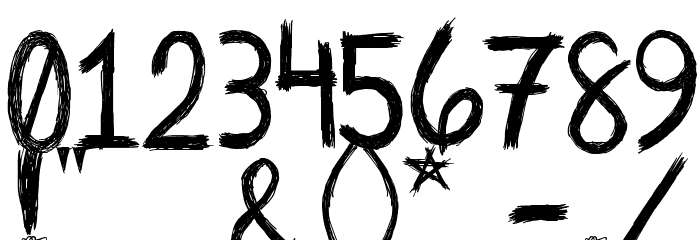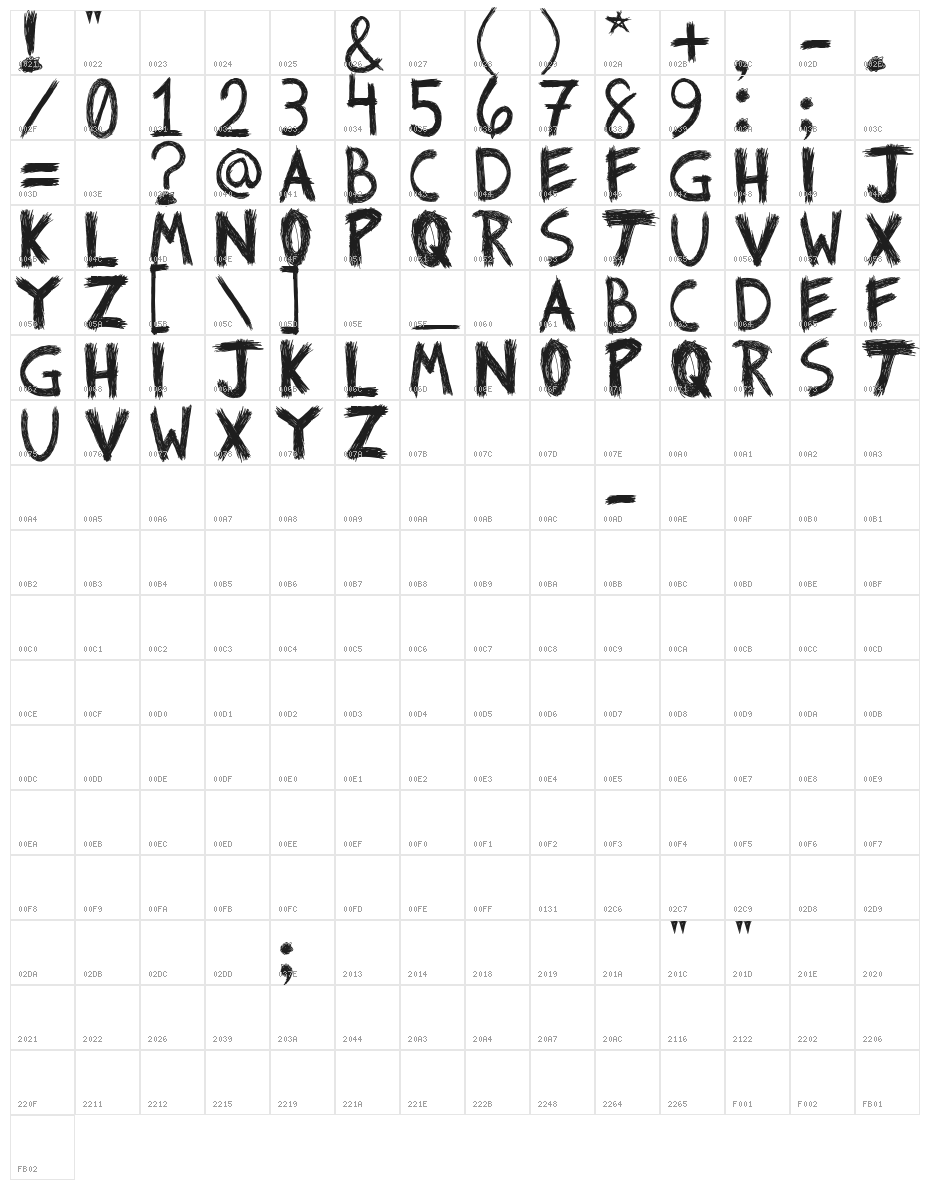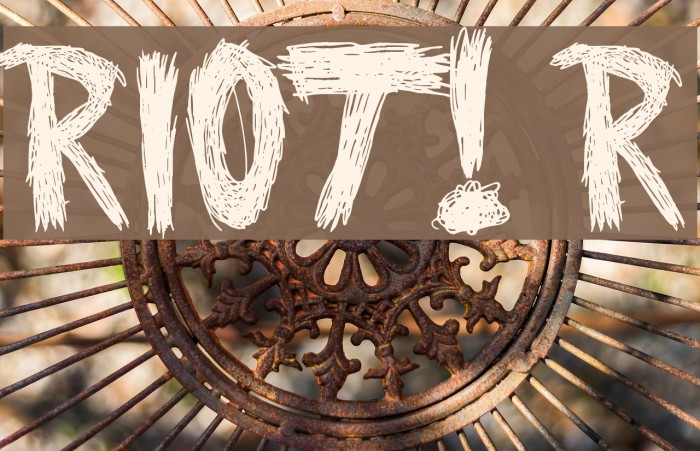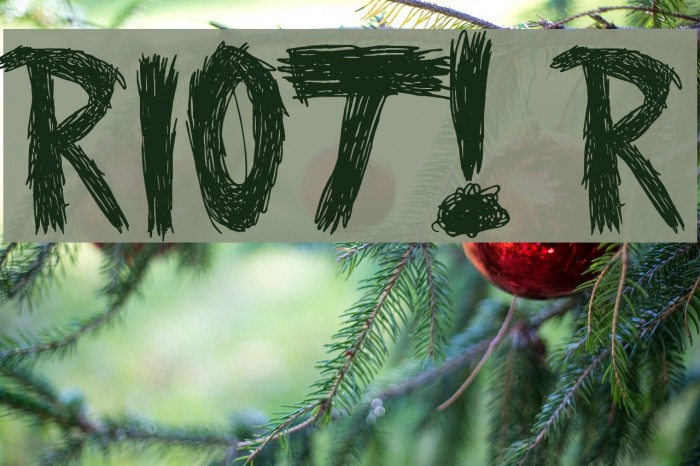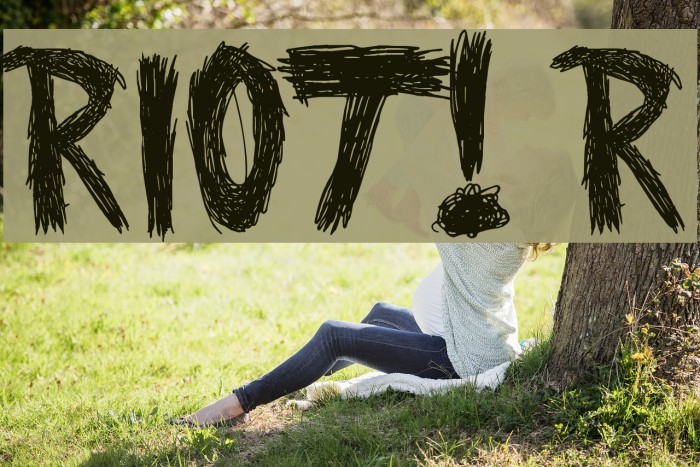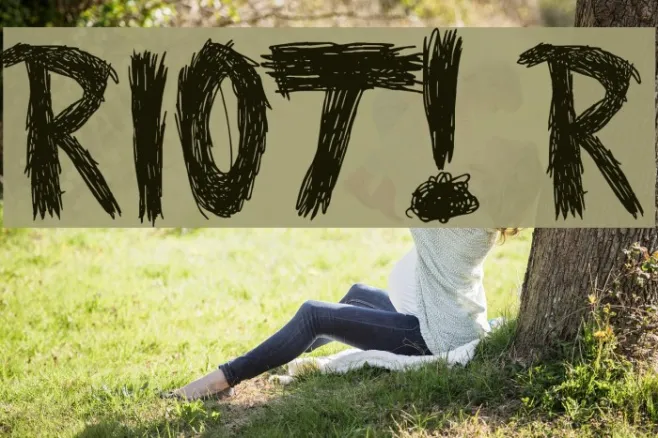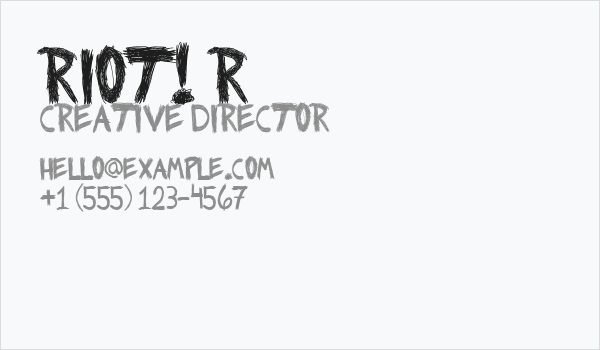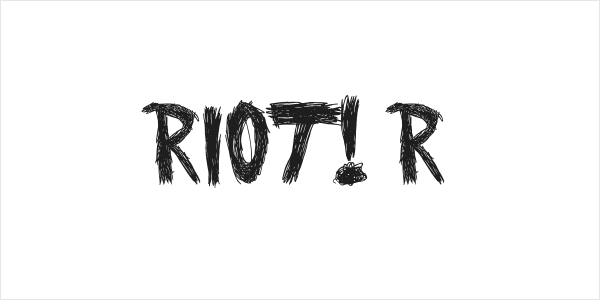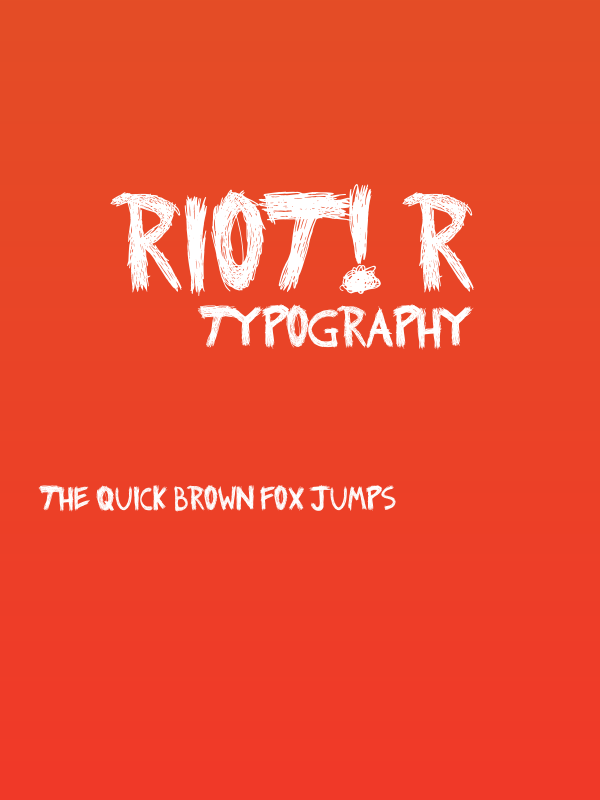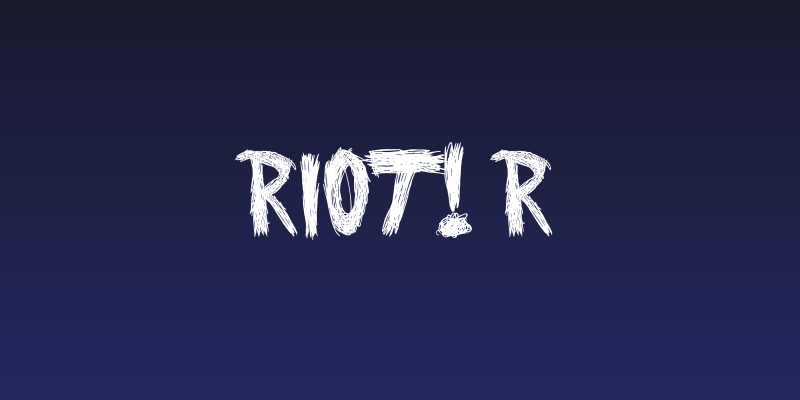
RIOT! R Font
RIOT! R Description
This font features a bold, hand-drawn style with a rough, textured appearance. The characters are irregular and dynamic, giving a sense of movement and energy. The strokes are thick and uneven, with a sketch-like quality that adds a raw, artistic feel. The uppercase and lowercase letters maintain a consistent style, while the numbers and special characters complement the overall aesthetic. This font is ideal for projects that require a bold, expressive look, such as posters, album covers, or creative branding.